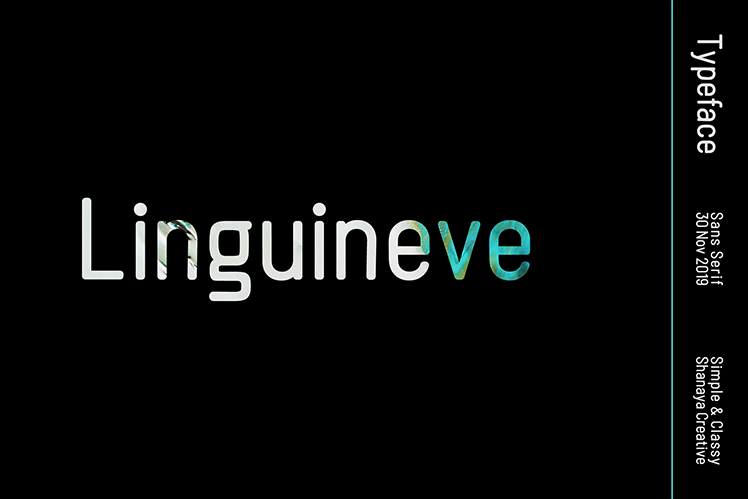
Preview and download Linguineve Font. Created by Shanaya Studio in Basic Sans serif styles with Free for personal use license.
Font name: | Linguineve |
Author: | Shanaya Studio |